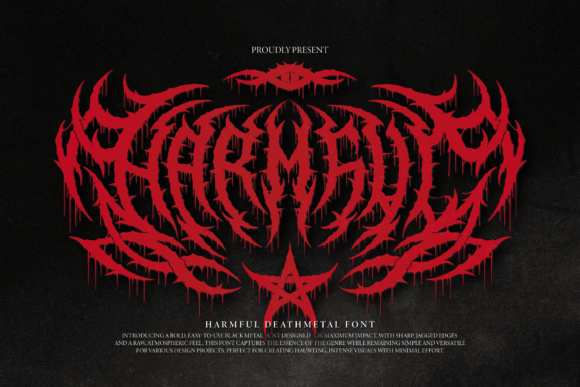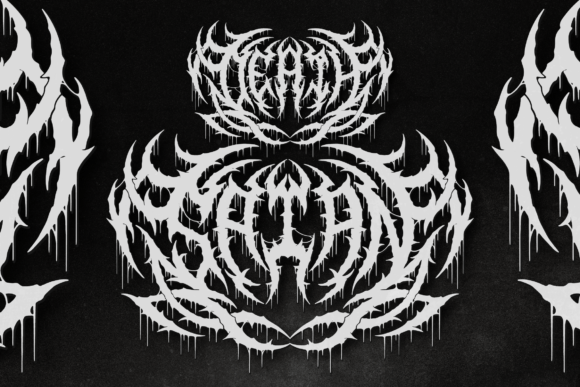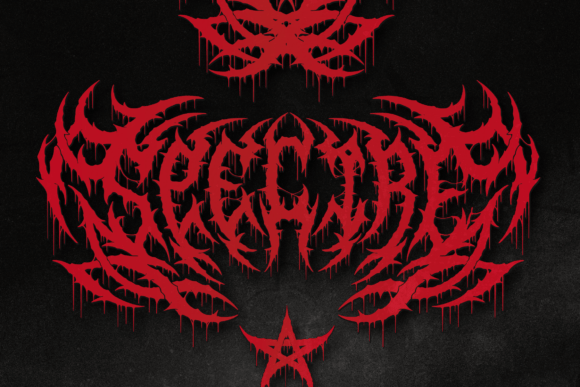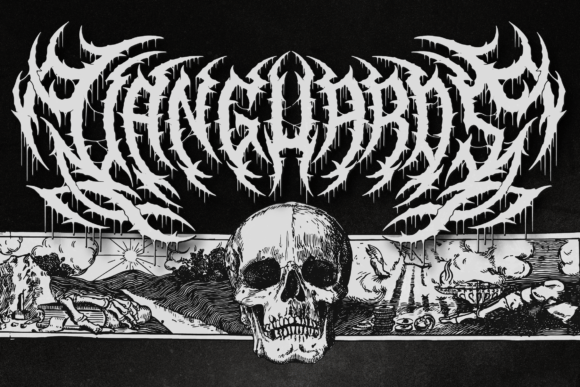
Harmful Font
About the Harmful Font
Elevate your designs with Harmful Font, a font that combines sophistication with readability. Harmful is a death metal blackletter font that is suitable for any projects such as: logos, branding projects, homeware designs, product packaging, mugs, quotes, posters, shopping bags, t-shirts, book covers, name card, invitation cards, greeting cards, label, photography, watermark, special events, and all your other lovely projects that need a Death Metal Font taste.
Harmful excels as a headline font for projects demanding a bold, aggressive aesthetic. Its strength lies in short, impactful statements—think posters, logos, and branding for extreme sports or heavy metal bands. Avoid using it for body text or UI elements; the intricate details are illegible at smaller sizes and its aggressive nature clashes with user interface requirements.
Pairing Harmful effectively requires careful consideration. A clean, geometric sans-serif like Futura or a neutral serif like Garamond offers a strong contrast, grounding the aggressive blackletter. For a more cohesive, dark aesthetic, consider pairing it with a similarly heavy, but simpler, sans-serif like Impact. Avoid pairing it with overly decorative or playful fonts, as this would dilute its unique character.
The overall personality of Harmful is rebellious and uncompromising. It projects power and intensity, making it ideal for brands aiming for a dark, edgy, and high-energy image.